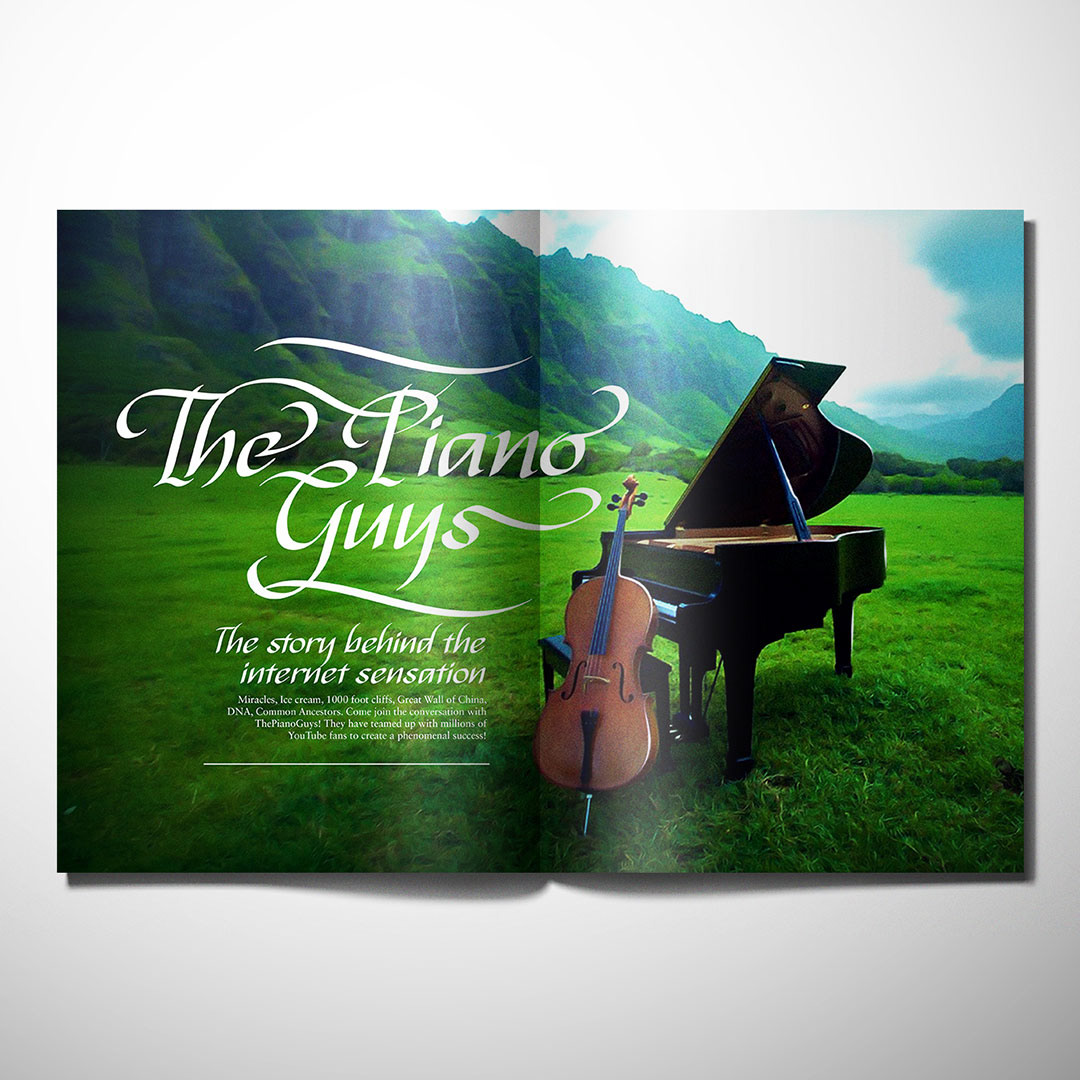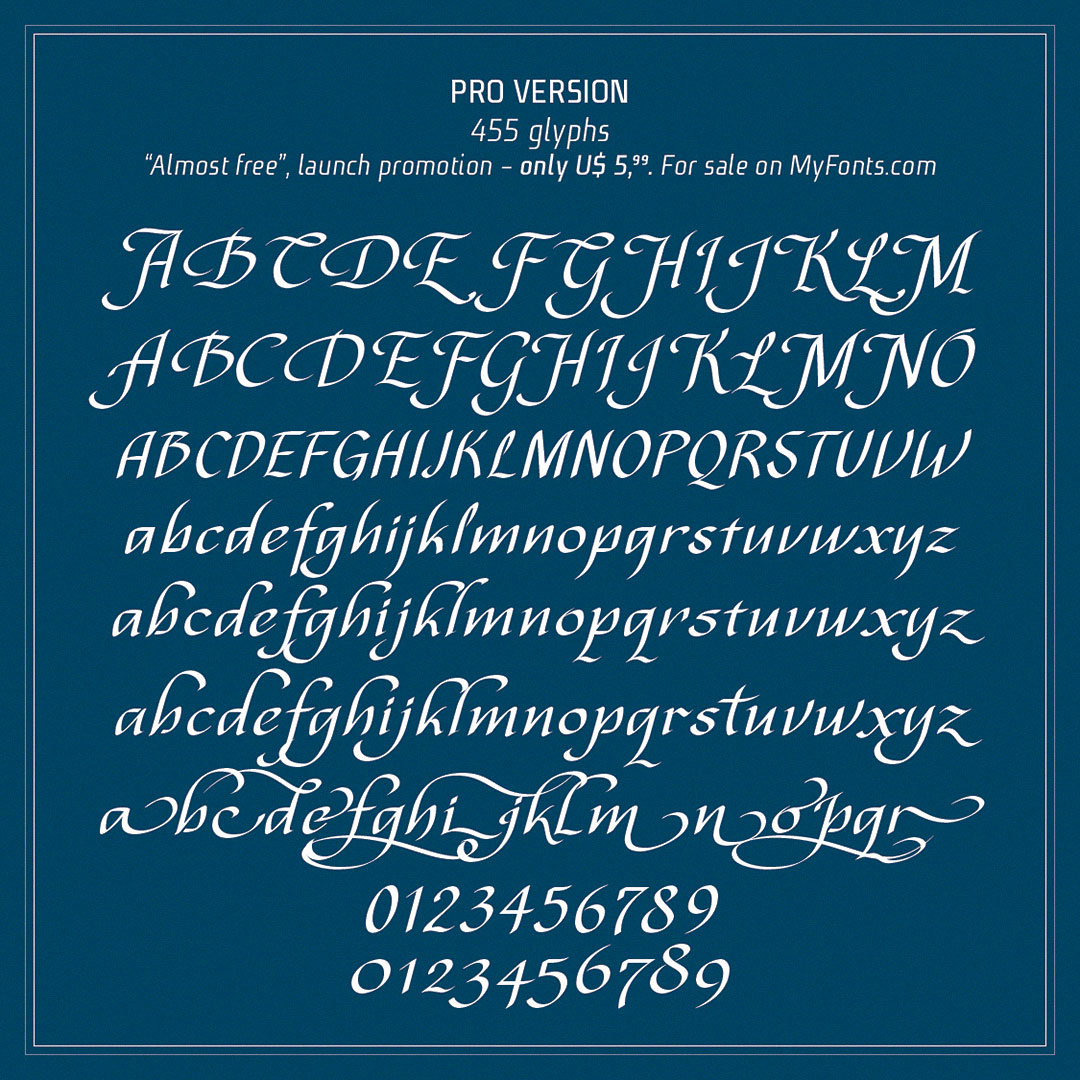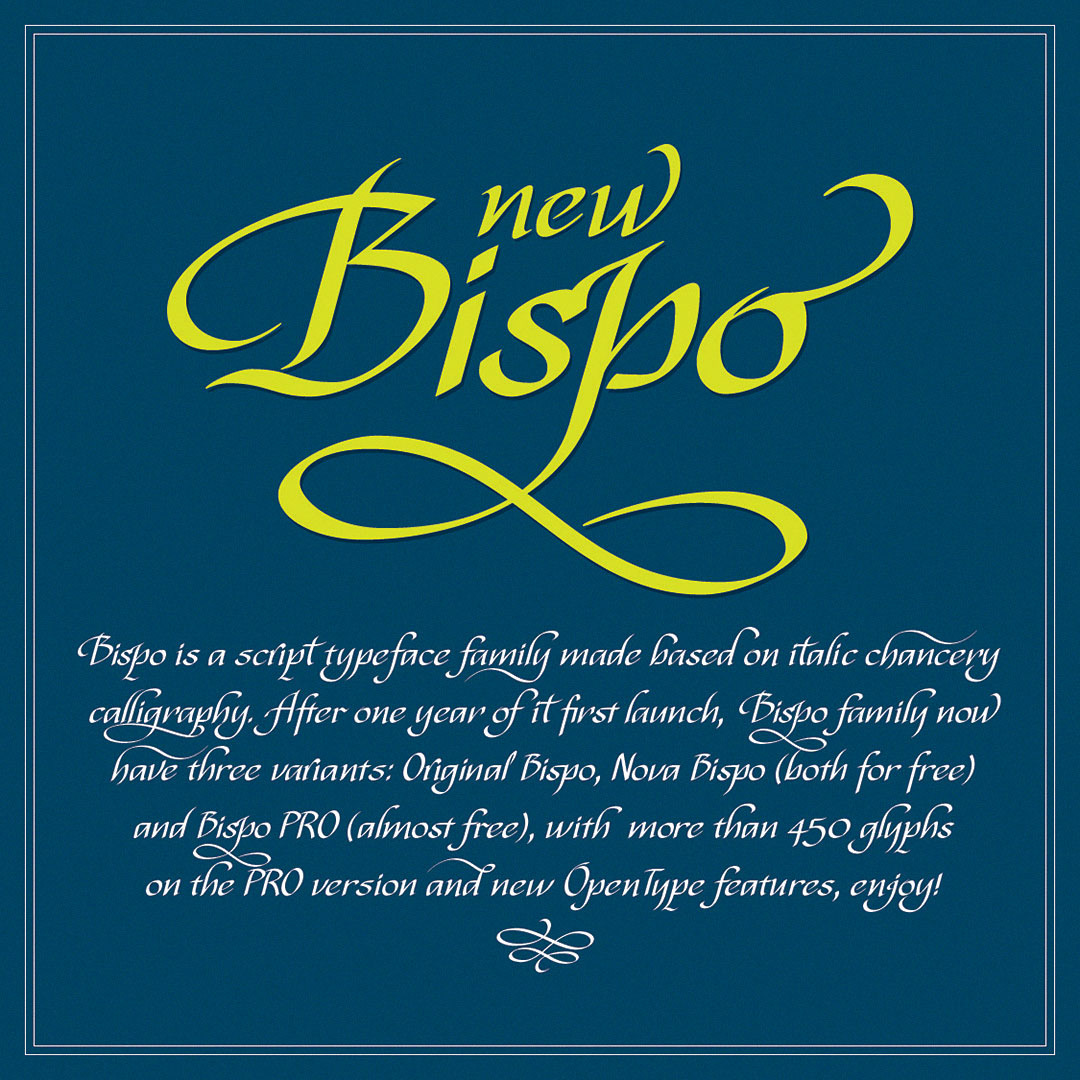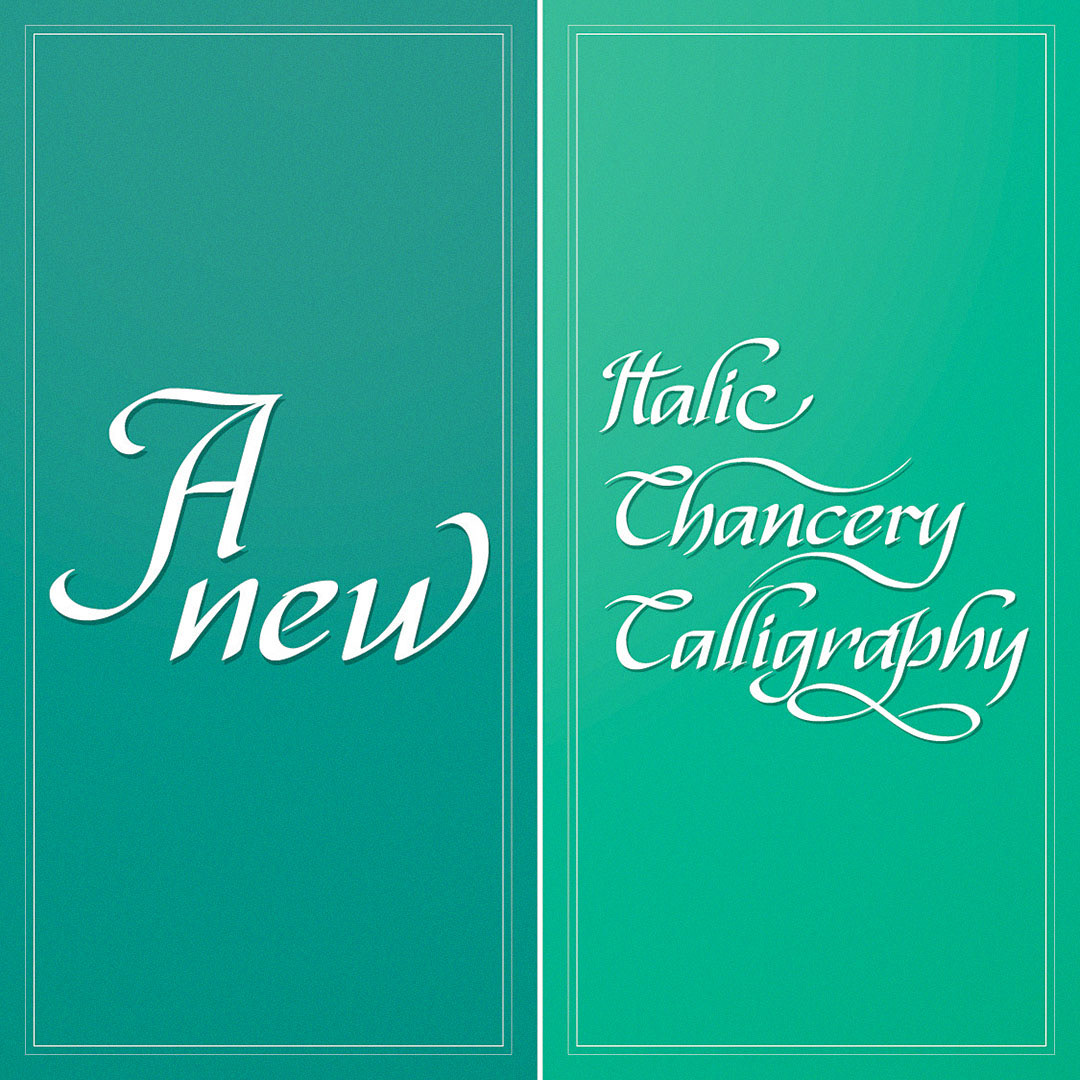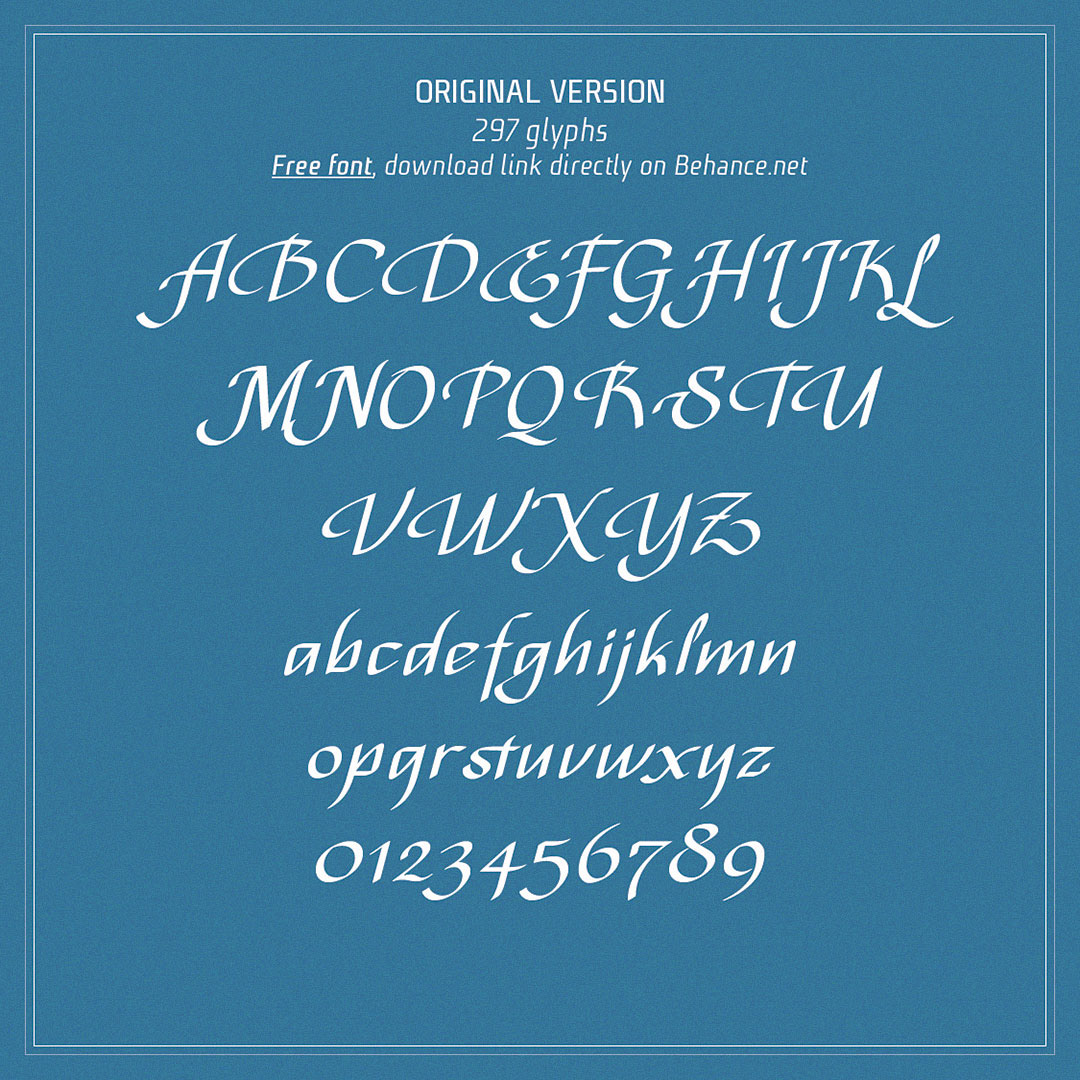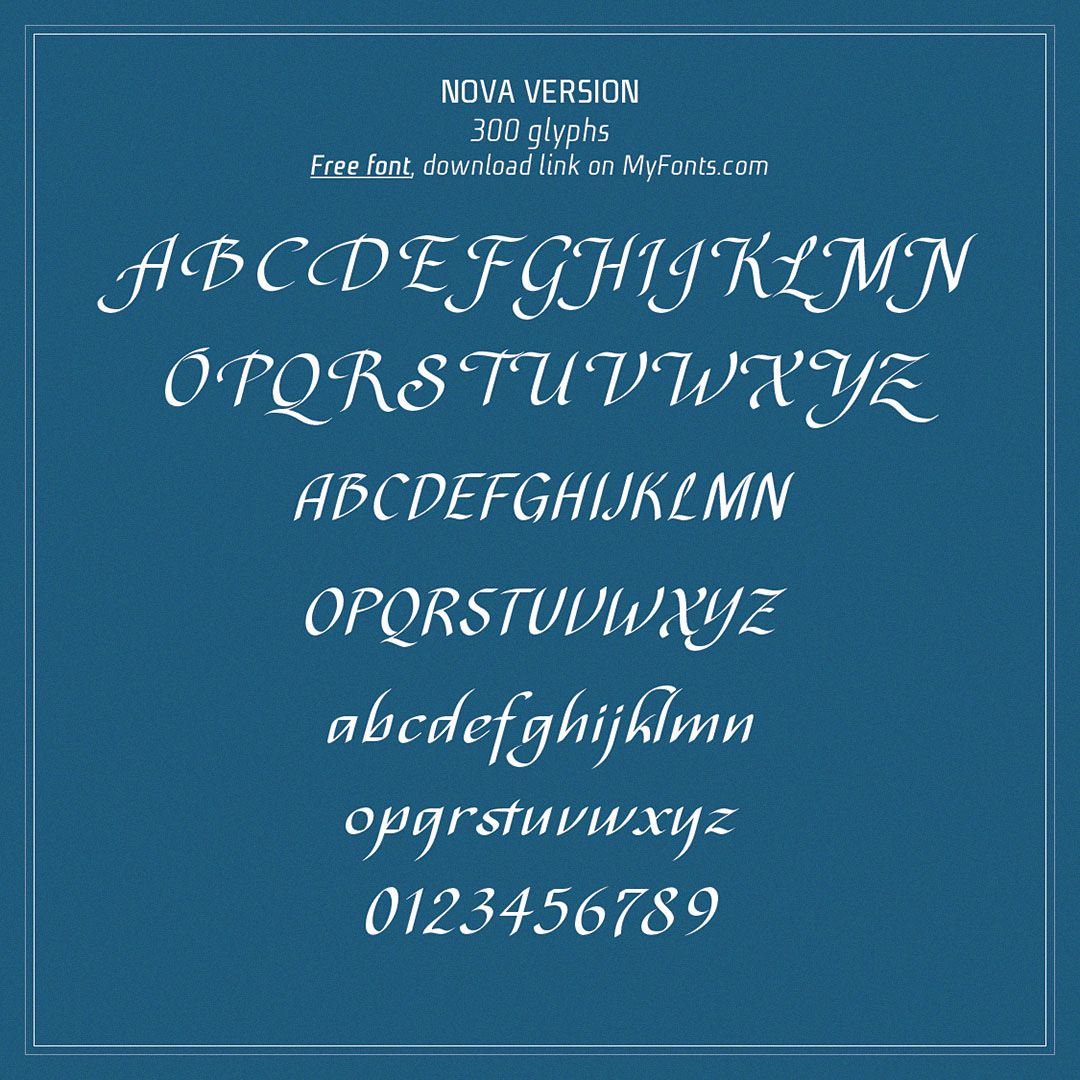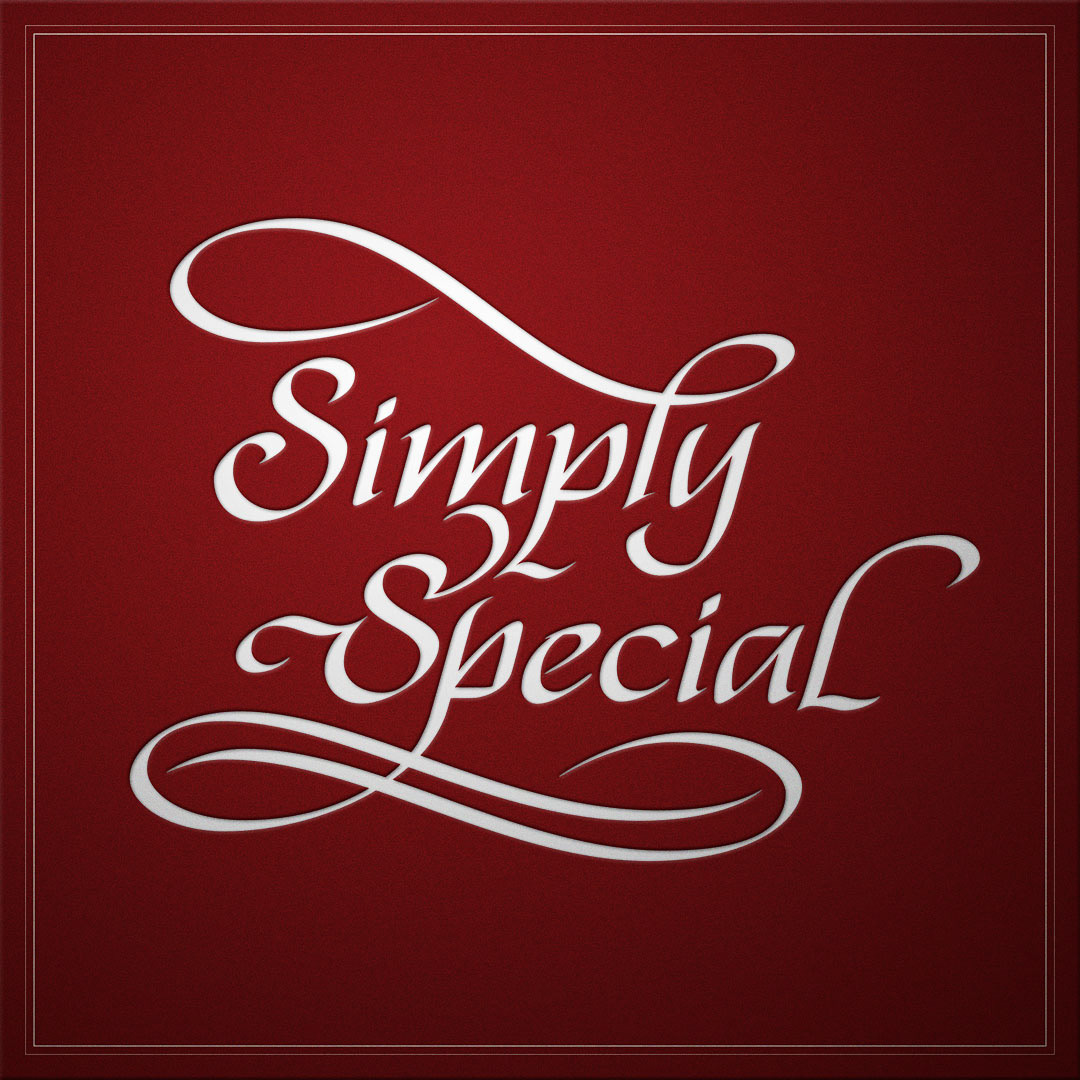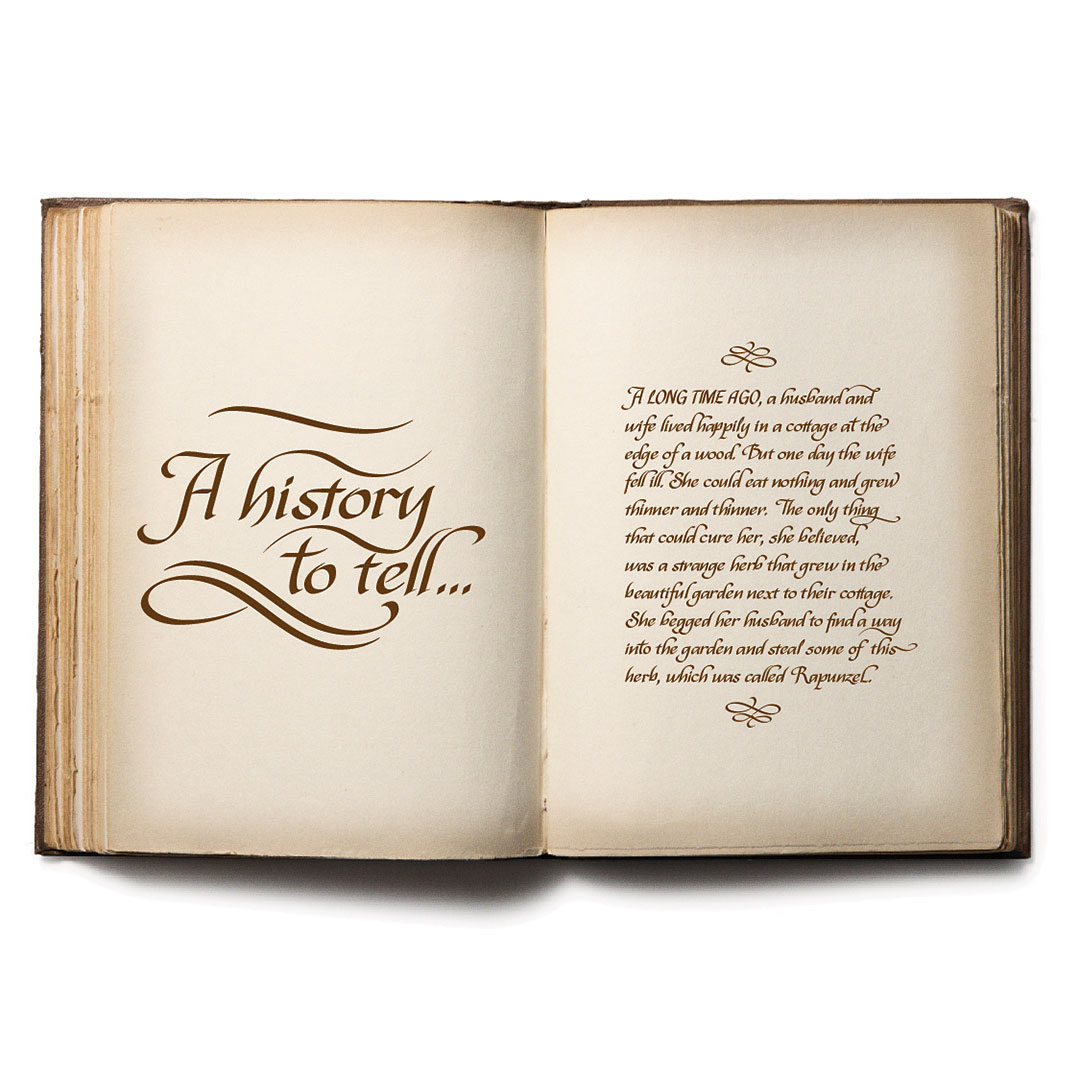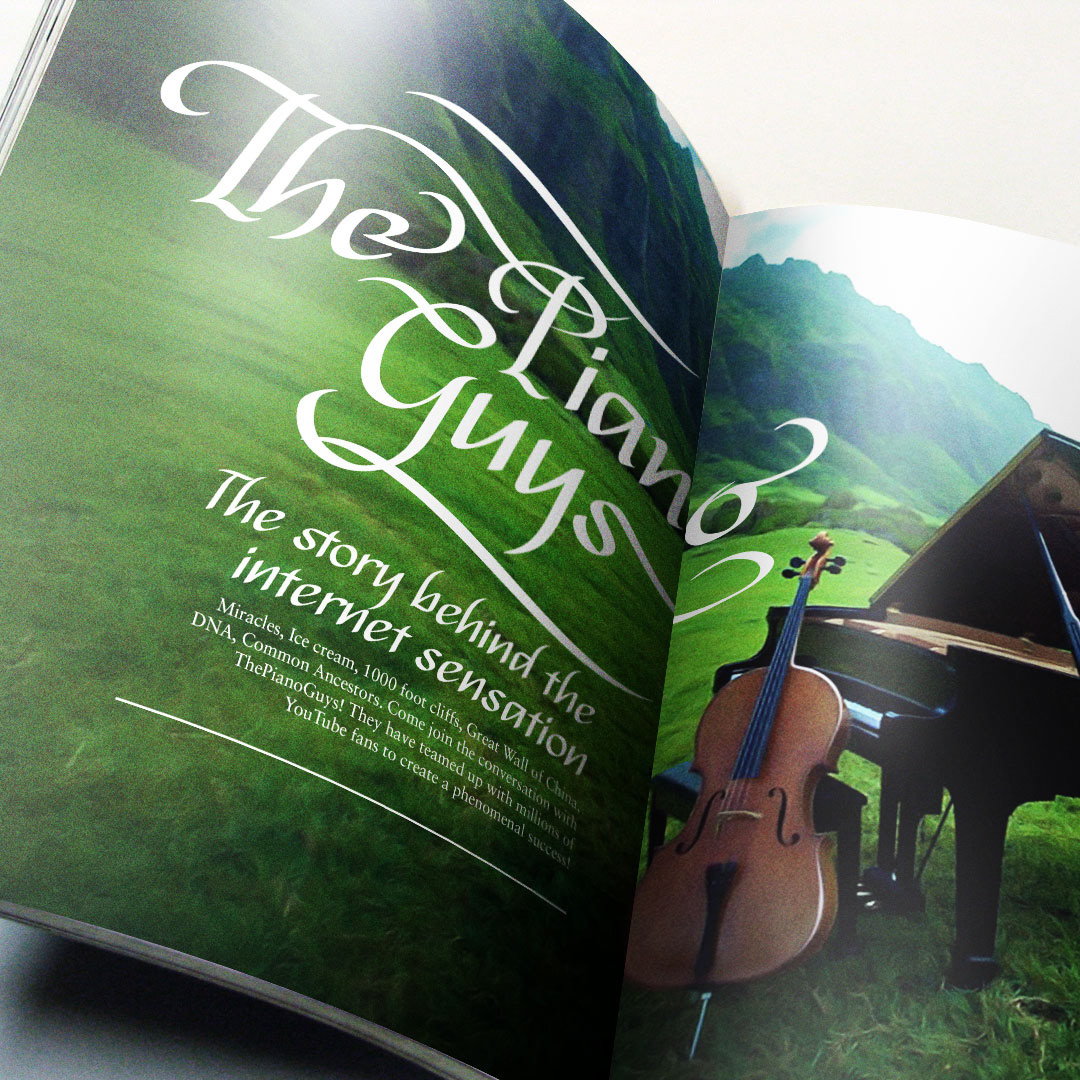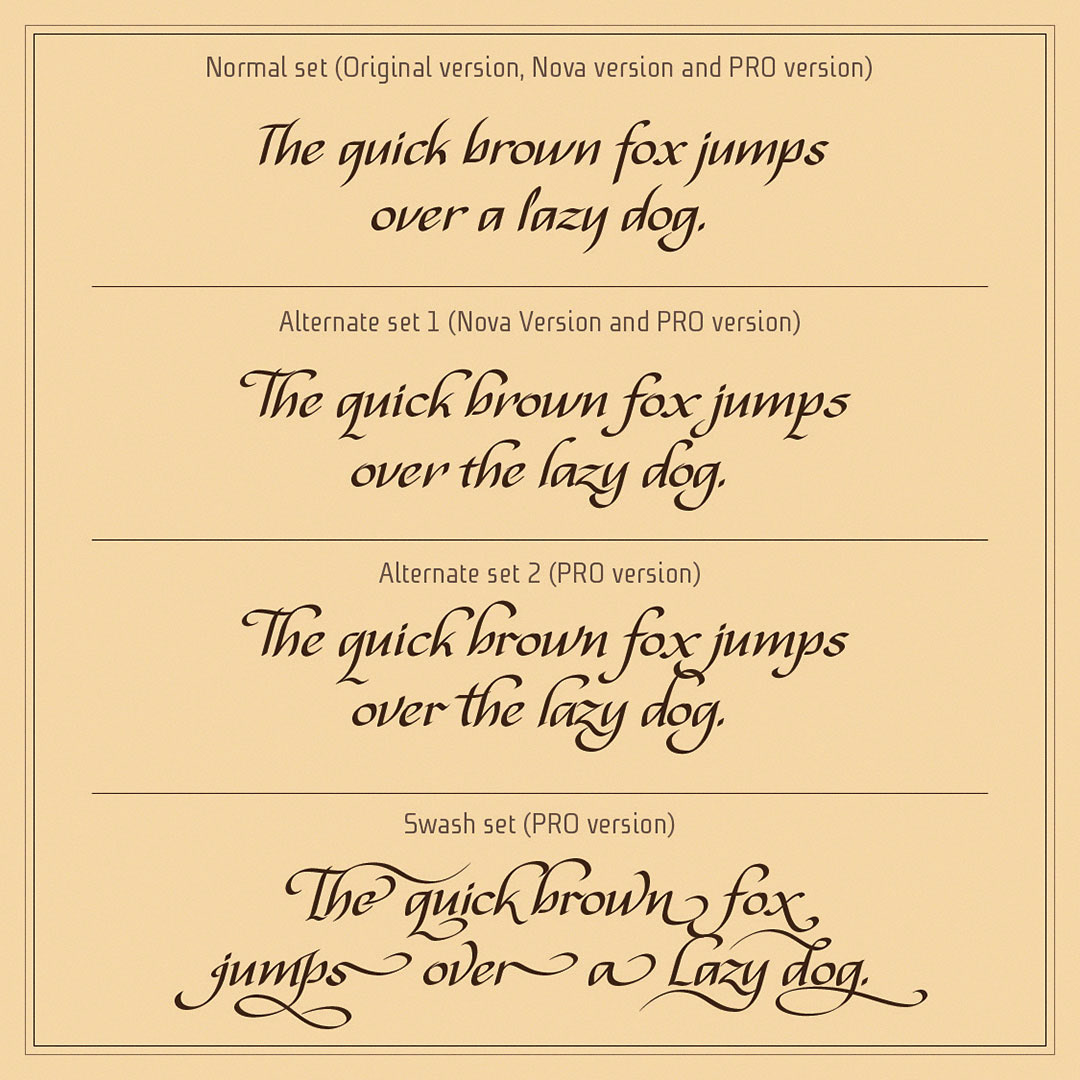
Bispo new typeface
An italic chancery calligraphy typeface
Bispo is a script typeface family made based on italic chancery calligraphy. To celebrate one year of the
“original Bispo” launching, I decided increase Bispo family with two more variants, now we have:
Original Bispo, Nova Bispo (both for free) and Bispo PRO (almost free), with  more than 450 glyphs on the PRO version and new OpenType features, enjoy!
Bispo é uma fonte “manuscrita” criada com base em um estilo caligráfico itálico chanceleresco. Para comemorar 1 ano
do lançamento de sua versão original, resolvi aumentar a família Bispo com duas novas variantes, agora temos:
A Bispo Original, a Nova Bispo (ambas de graça) e a Bispo PRO (quase de graça), com mais de 450 glifos
na versão PRO e novos recursos OpenType, aproveite!
Bispo PRO
With 455 glyphs. The basic set of the PRO version has a smaller uppercase glyphs, that allow you to write in ALLCAPS or acronyms. When the OpenType feature “contextual alternates” is enabled, the first capital characters of the words will change to the bigger version, with more swashes, and the lowercase letters will be cycled between the three versions of each one. The OpenType feature “swash” enable the most ornamented glyphs.
Com 455 glifos. O conjunto básico de letras da versão PRO tem maiúsculas menores, que permite escrever em letras maiúsculas ou siglas. Quando o recurso OpenType “contextual alternates” está ativado, a primeira letra maiúscula das palavras muda para uma letra maior, mais ornamentada, e as letras minúsculas se alternam sequencialmente entre as três versões de cada uma. O recurso OpenType “swash” ativa as letras mais ornamentadas. Você pode comprar a versão PRO por um preço muito baixo, quase de graça, aqui. Apenas U$ 9,95 (algo próximo de R$ 20,00).
Nova Bispo
New review, with 300 glyphs, new characters and the possibility
of write in ALLCAPS and lined numbers.
Nova “revisão”, com 300 glifos, novos caracteres e a possibilidade
de escrever em letras maiúsculas e numerais alinhados. Baixe a sua aqui, de graça.
Original Bispo
The original and most basic version, released on January 2012, with 297 glyphs.
A versão original e mais básica, lançada em Janeiro de 2012, com 297 glifos.
Promotional posters
(Using Bispo PRO version)
I invited some designers to create a poster using my typeface Bispo,
Eu convidei alguns designers para criar um poster usando minha fonte Bispo, veja abaixo a galeria.